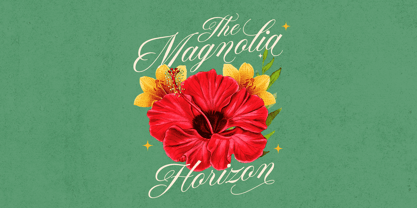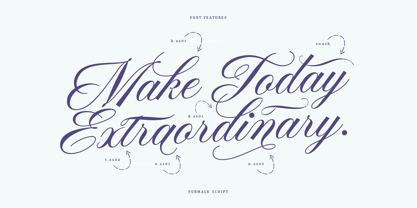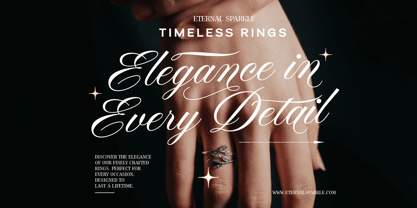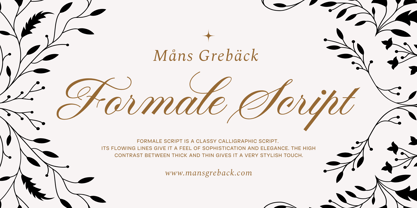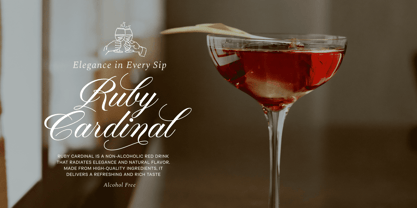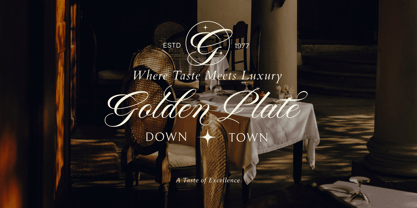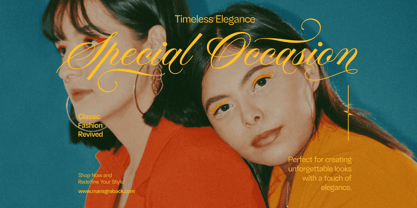
Formale Script
by Mans Greback
The Formale Script Font Family was designed by Måns Grebäck and published by Mans Greback. Formale Script contains 5 styles and family package options. More about this family
Formale Script is a classy calligraphic script.
Its flowing lines give it a feel of sophistication and elegance. The high contrast between thick and thin gives it a very stylish touch. Imagine the words in the titles of a black-and-white vintage movie or as the lettering on a fancy wine bottle.
The font is built with advanced OpenType functionality and guaranteed top-notch quality, containing stylistic and contextual alternates, ligatures and more automatic and manual features; all to give you full control and customizability.
It has extensive lingual support, covering all Latin-based languages, from North Europa to South Africa, from America to South-East Asia. It contains all characters and symbols you'll ever need, including all punctuation and numbers.
Mans Greback created this formal yet inviting script, designed with a high level of detail.